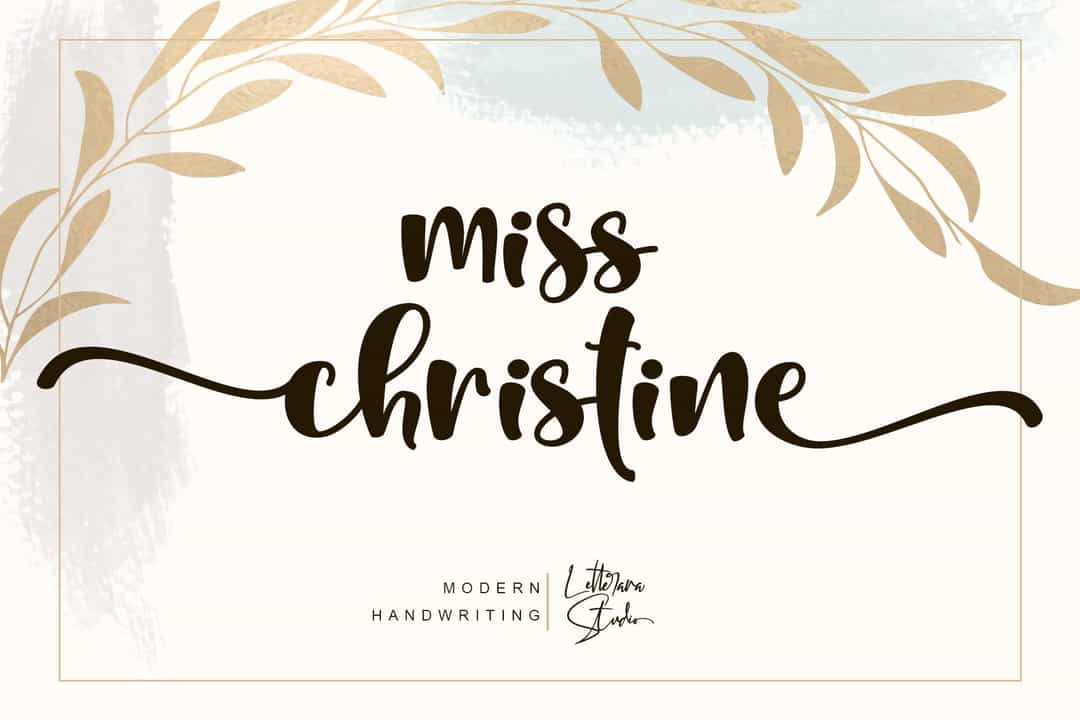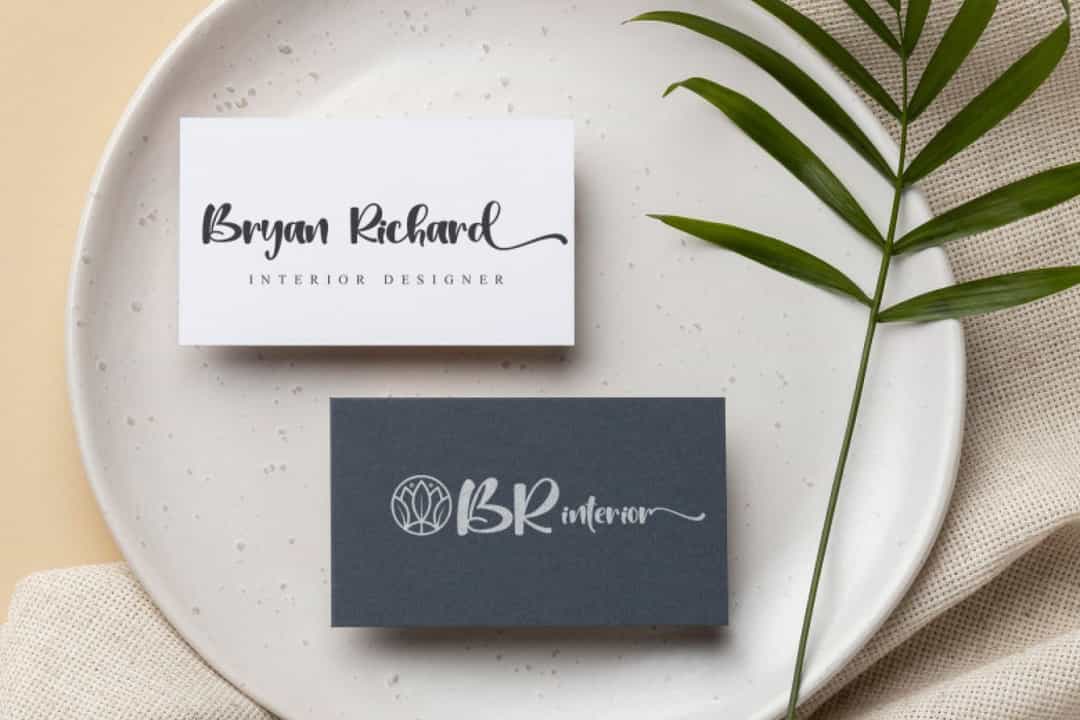
Miss Christine is a delightful calligraphy script font with plenty of authenticity!. With its gorgeous and well-balanced characters, Miss Christine can be used across various styles. From business presentations to fashion designs and artwork – Miss Christine makes your designs stand out and can bring even the wildest of imaginations into reality!